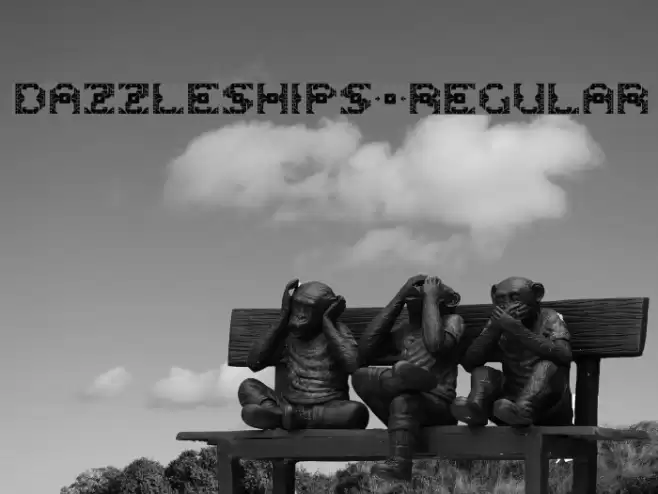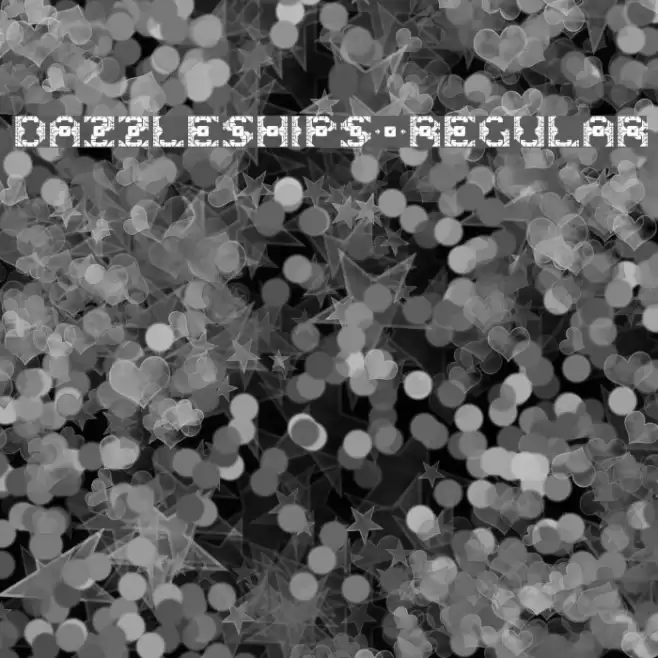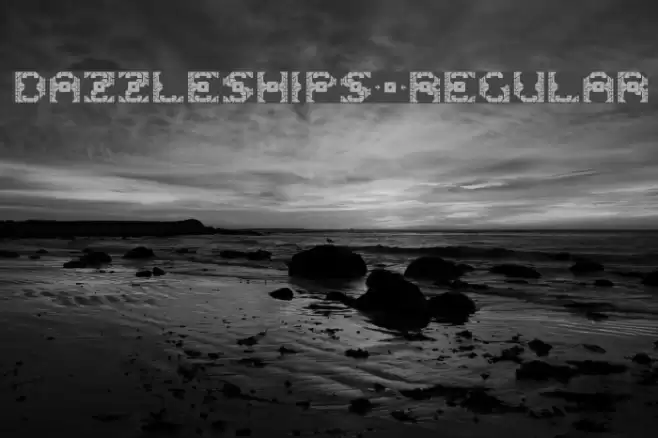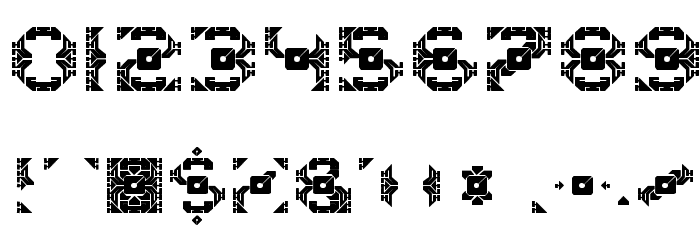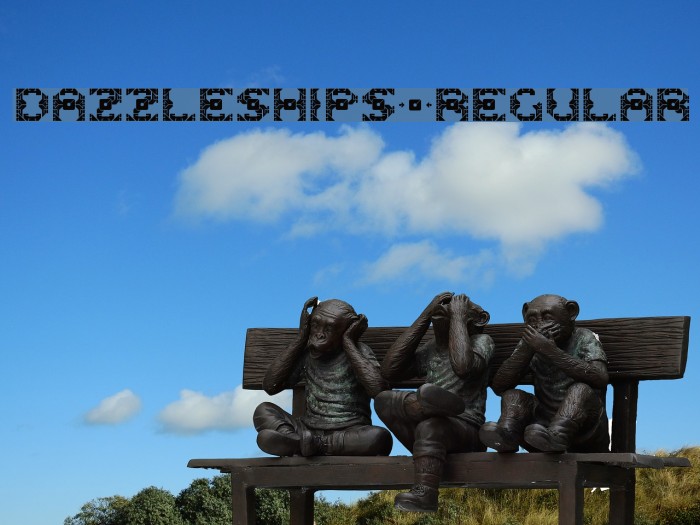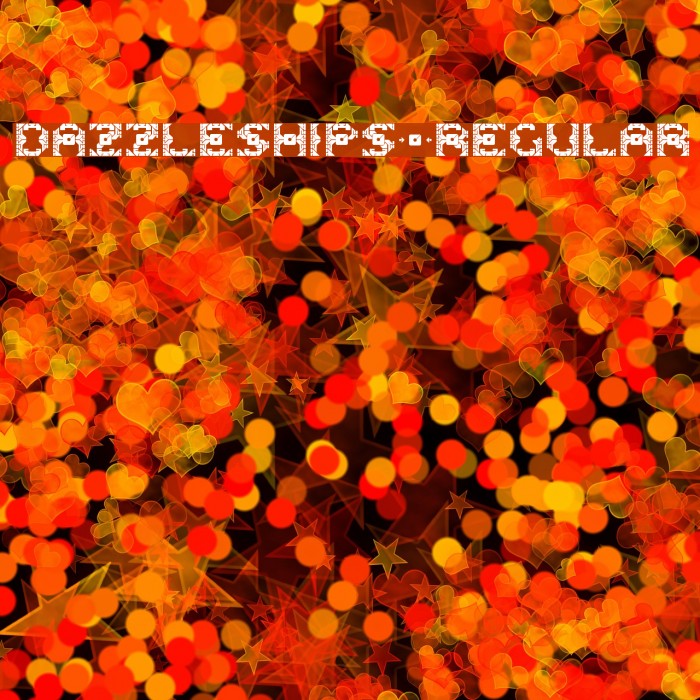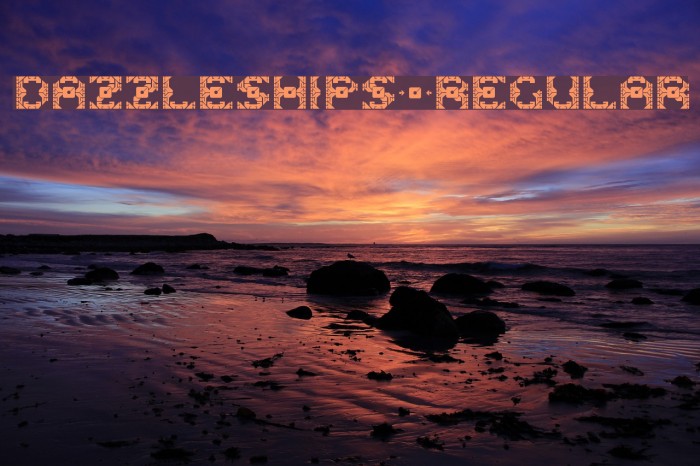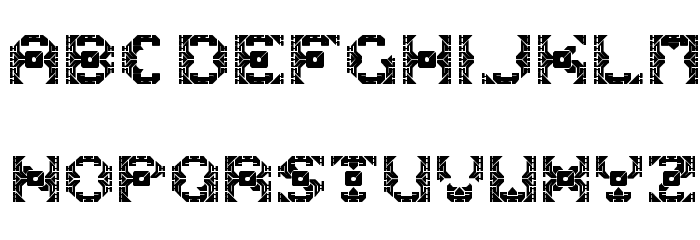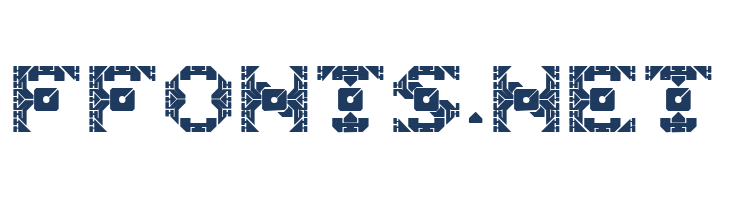
DazzleShips-Regular Font
DazzleShips-Regular Description
This font features a bold and geometric design with intricate patterns filling each character. The letters are constructed with a series of angular shapes and lines, creating a striking visual effect reminiscent of camouflage or dazzle patterns used in naval ships. The font is highly decorative, with each character appearing as a unique piece of art. It maintains a consistent structure across uppercase, lowercase, and numerical characters, ensuring readability despite its complex design. The special characters follow the same pattern, adding a cohesive look to the entire set.
A bold, geometric font with intricate dazzle patterns in each character from Uncategorized fonts.
- Proposed Projects: Ideal for projects requiring a bold statement, such as posters, album covers, or branding for creative industries.